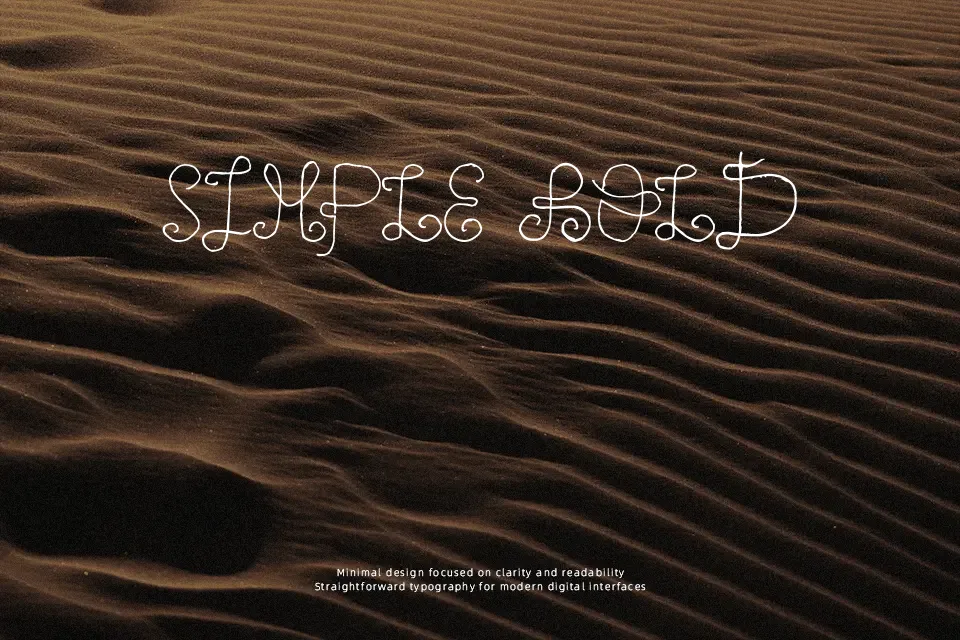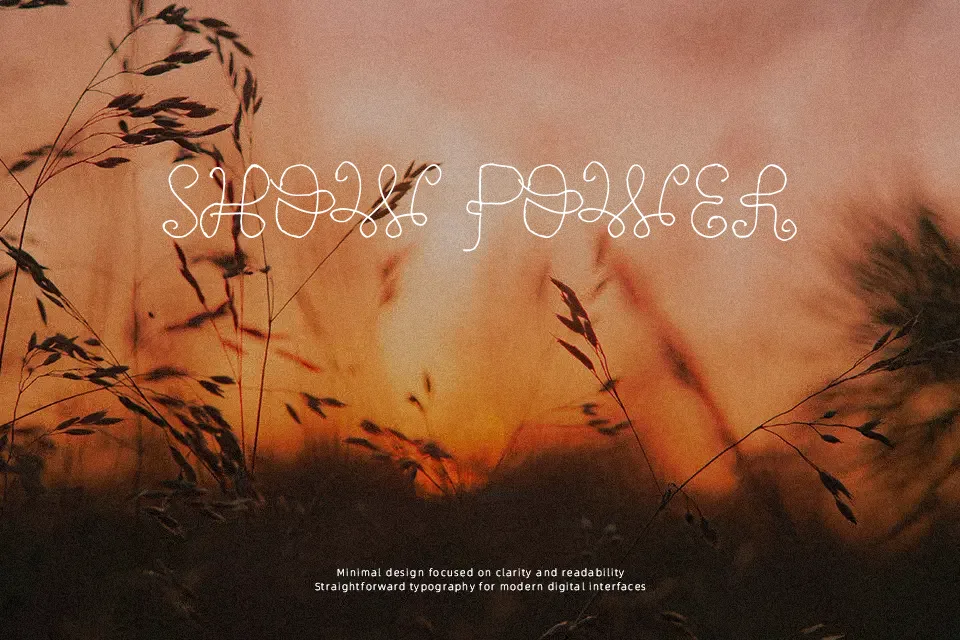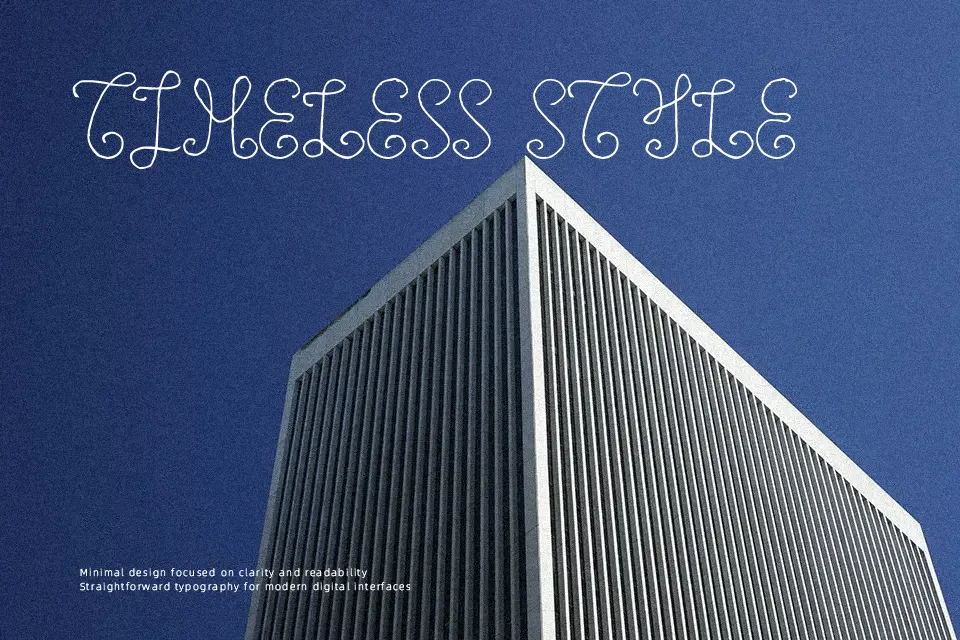
One Wild Line Font
Designed by Juan Casco
At larger sizes, One Wild Line Font reads as a continuous, hand-drawn arrangement of thin looping strokes rather than a conventional text face. The letters have narrow, elongated proportions, with curls and uneven contours that create an animated, tangled rhythm. Spacing appears open enough to separate many forms, although the decorative line work still asks for generous scale and uncomplicated layouts. It works most convincingly as a few words on a poster, cover, or label. The unusual construction gives headings a personal, sketch-like presence, but small settings and extended passages quickly become difficult to scan.
Best For: poster titles,album covers,expressive logo concepts,product labels
Perfect for headline, logo, and music, with a artistic and decorative style.